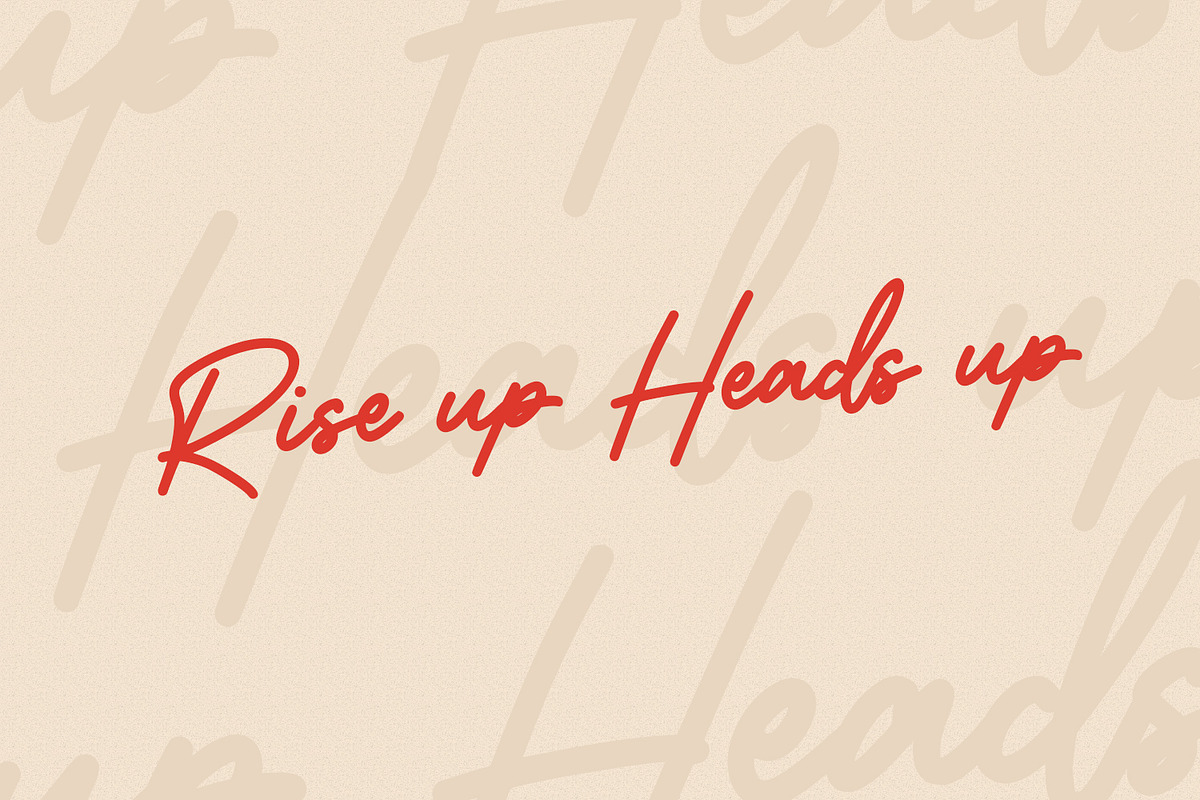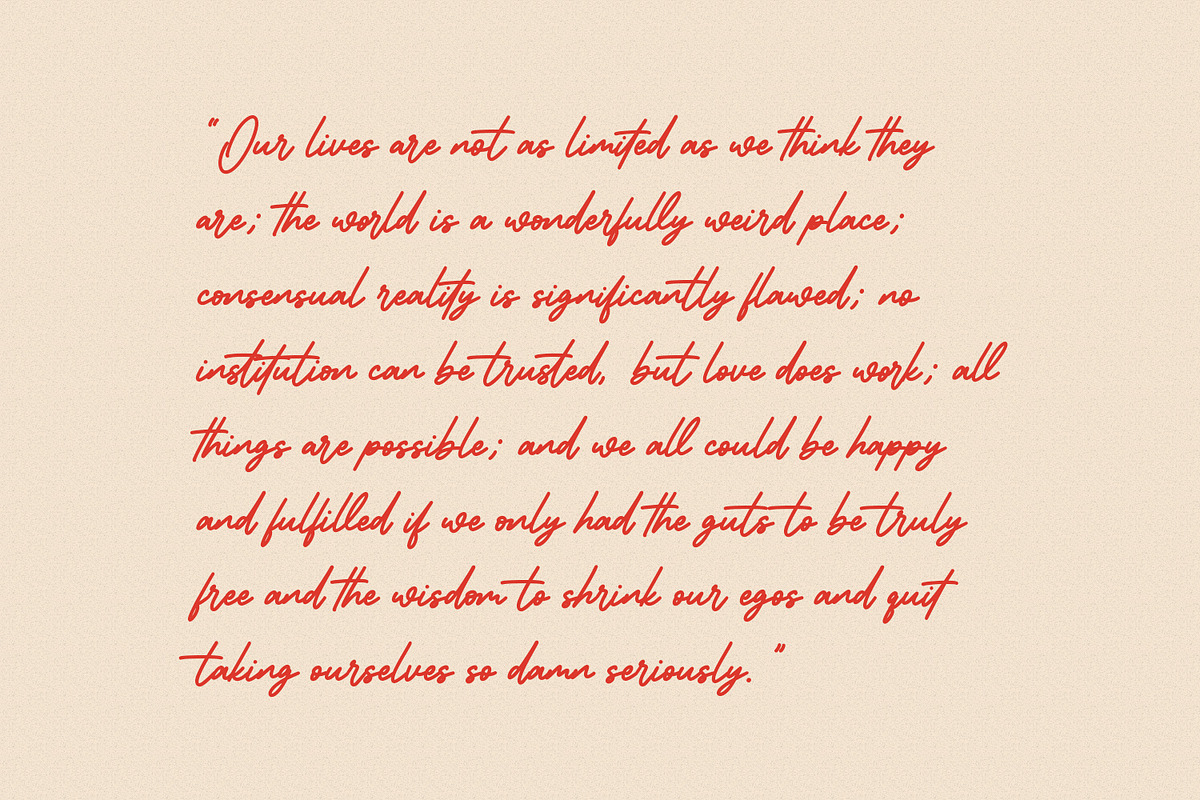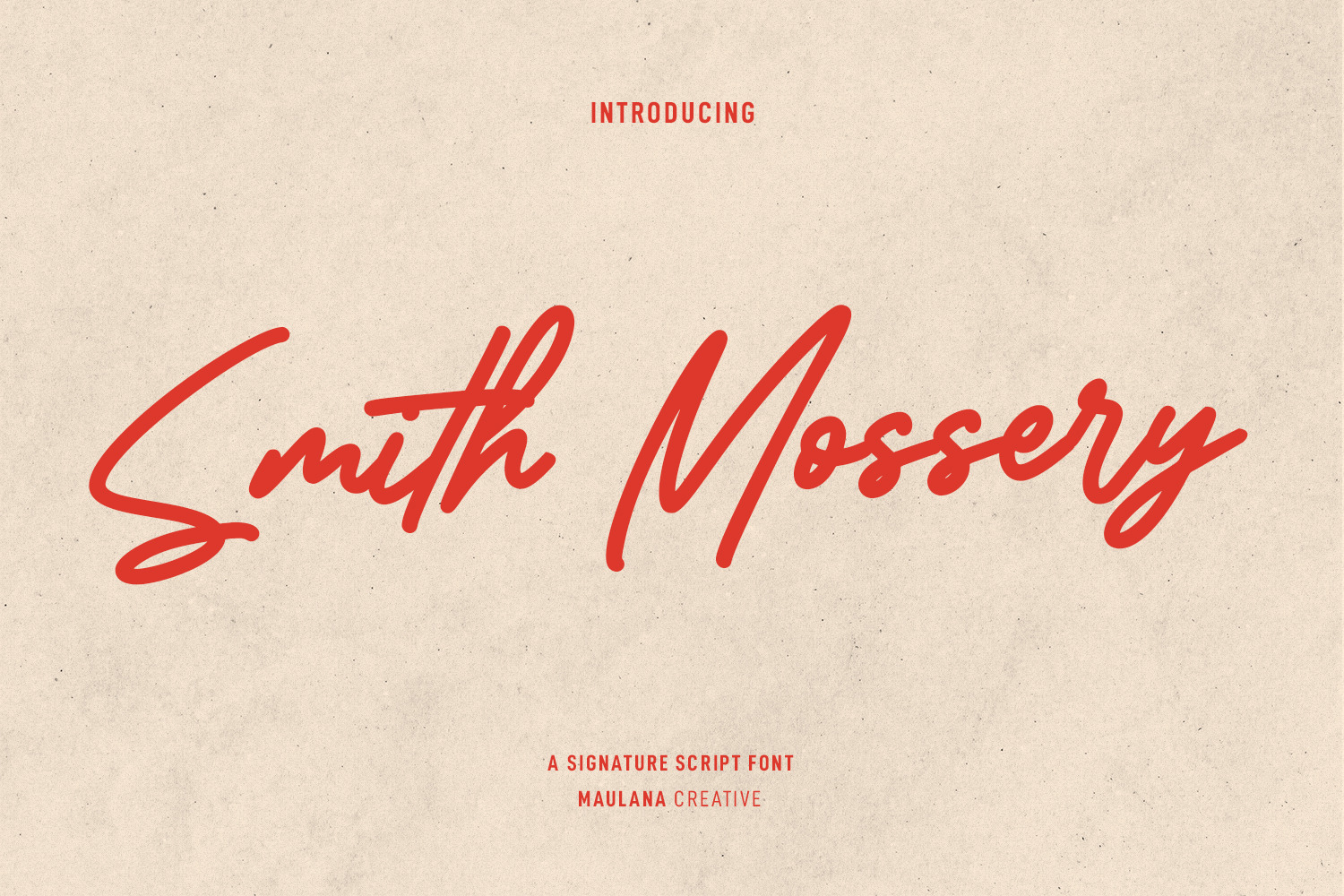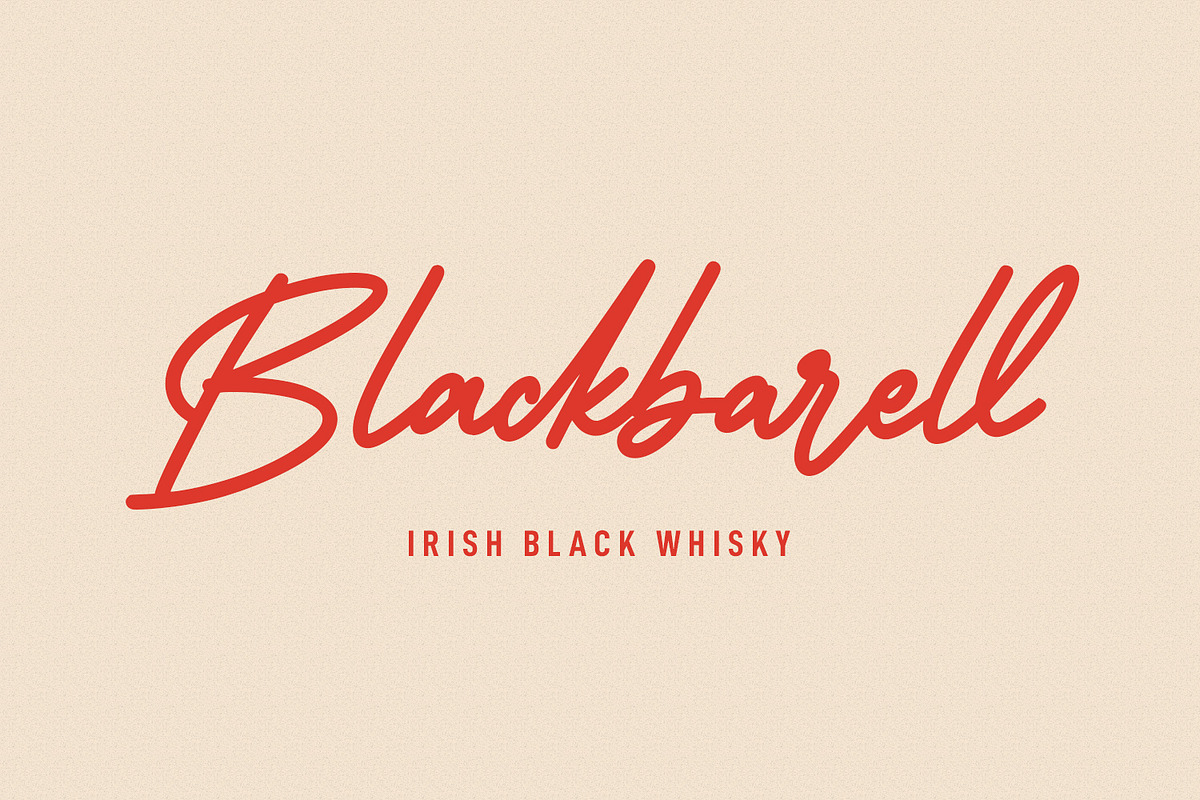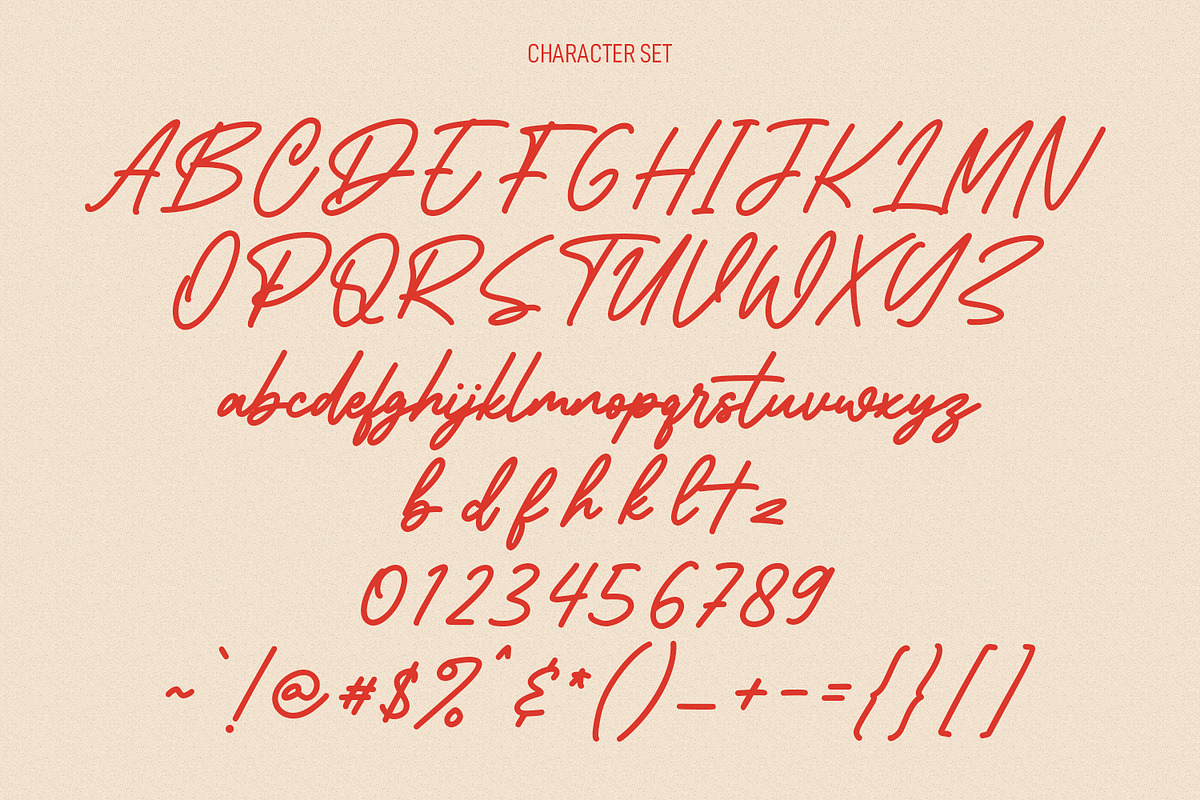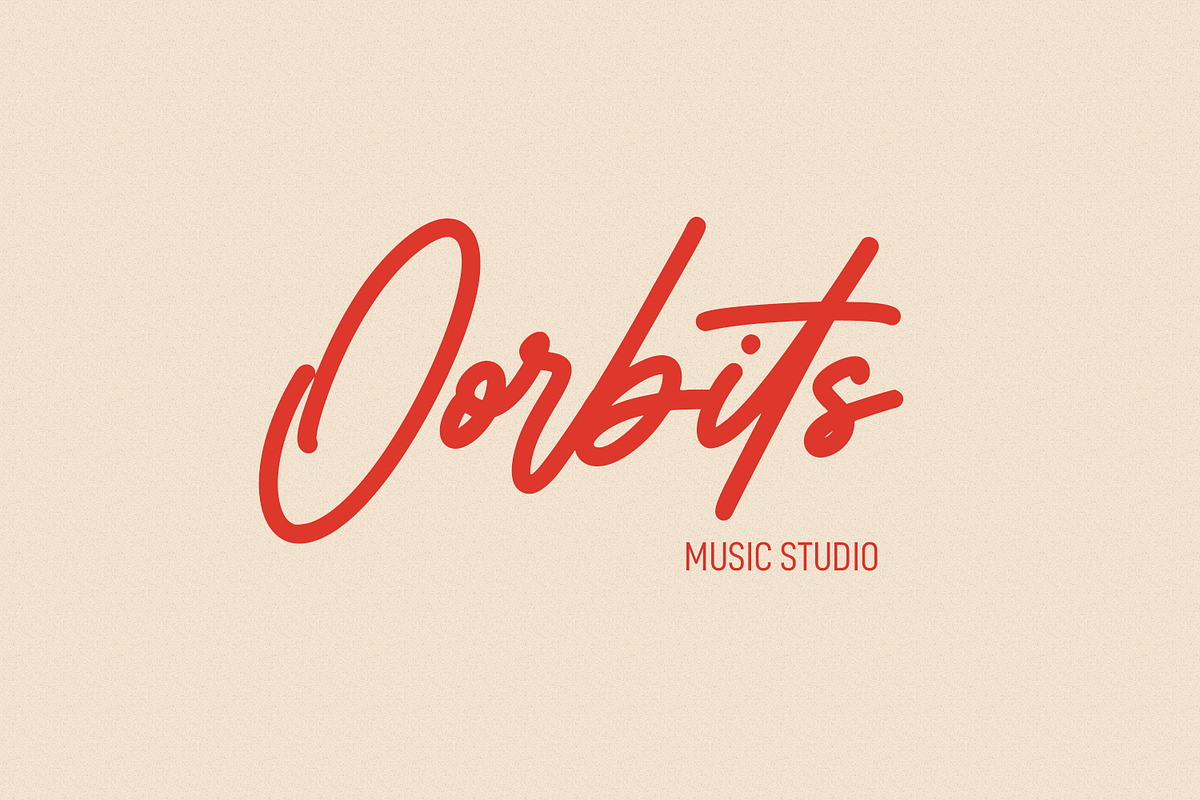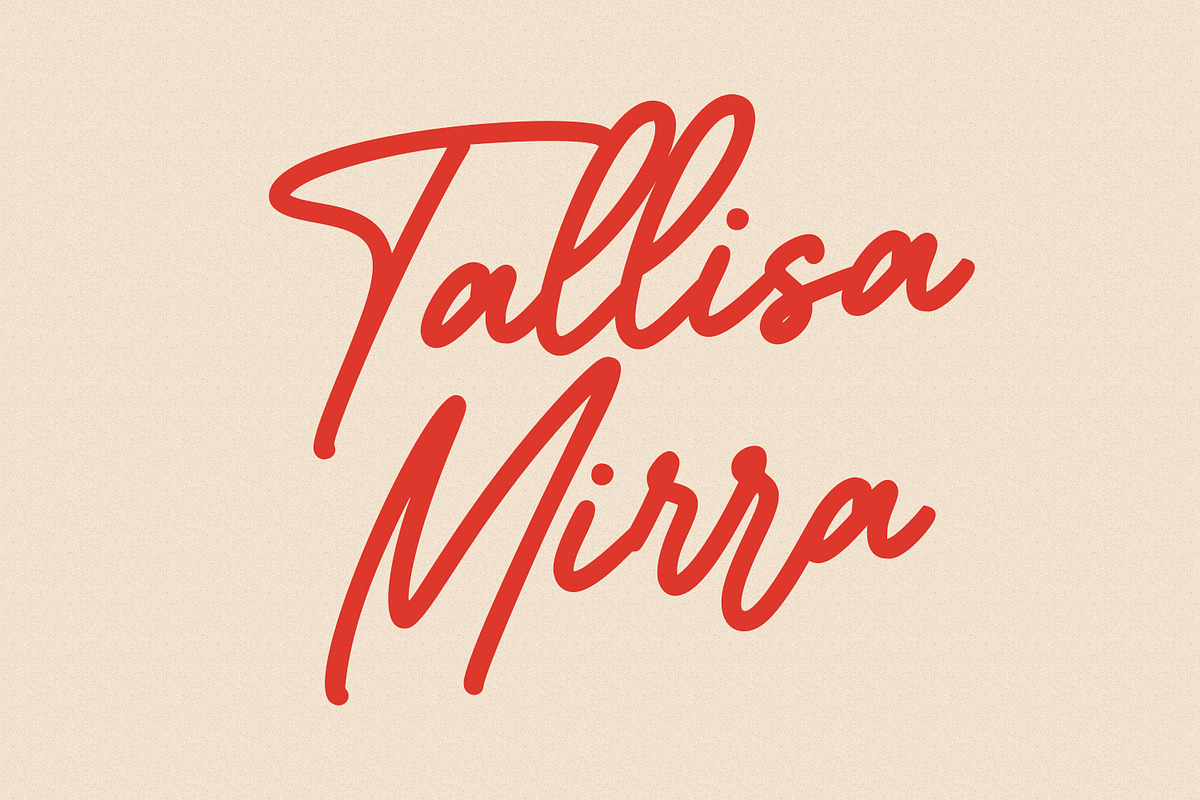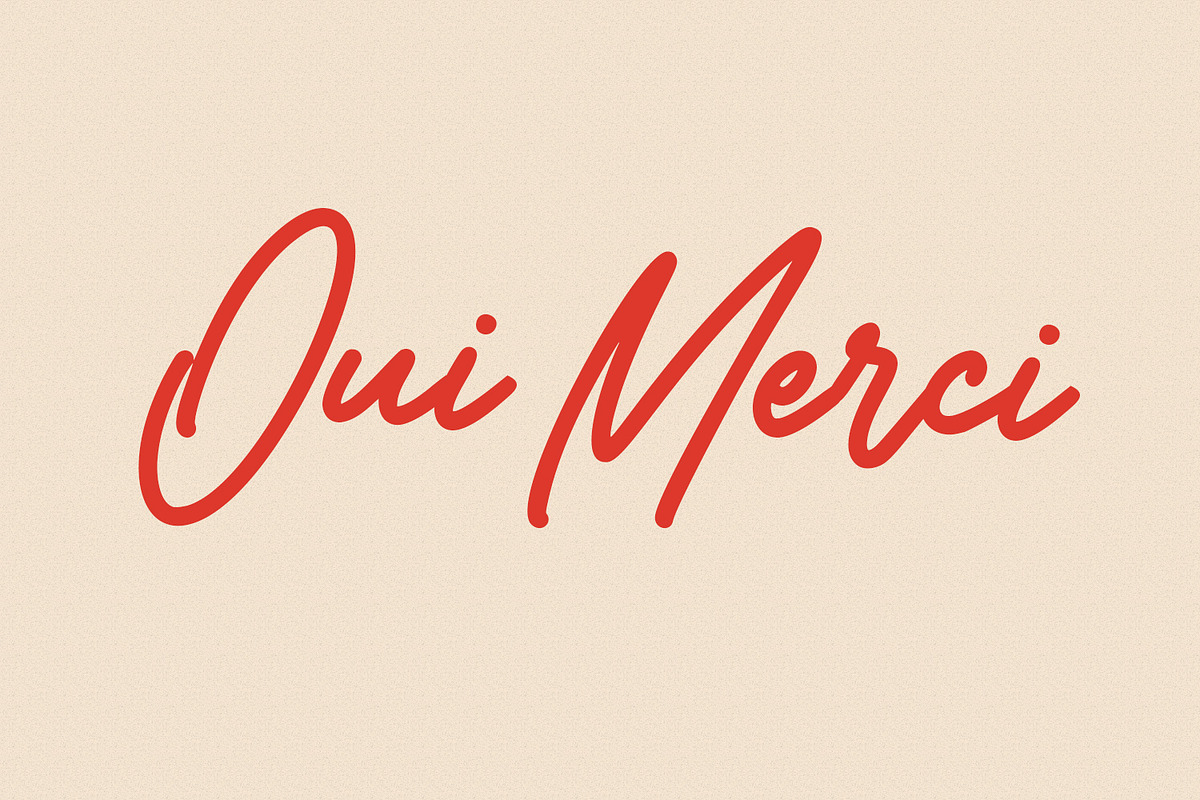
Smith Mossery Script Font
Smith Mossery is a modern signature script font. With consist mono-line stroke, fun character. To give you an extra creative work. Smith Mossery font support multilingual more than 100+ language. This font is good for logo design, Social media, Movie Titles, Books Titles, a short text even a long text letter and good for your secondary text font with sans or serif. Make a stunning work with Smith Mossery font.